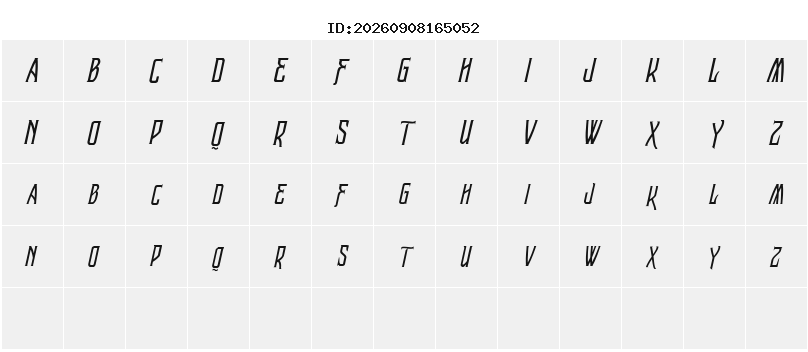
Vtks Raladeira 2 Preview
• Font Name: Vtks Raladeira 2
• Full Font Name: Vtks Raladeira 2
• Version: Version 1.00 February 1, 2016, initial release
• Designer: douglas vitkauskas
• Manufacturer: douglas vitkauskas
About Vtks Raladeira 2.ttf
Vtks Raladeira 2.ttf is a modern, elegant sans-serif font designed for ultimate readability and visual harmony. Perfect for branding, headlines, web design, and print materials.